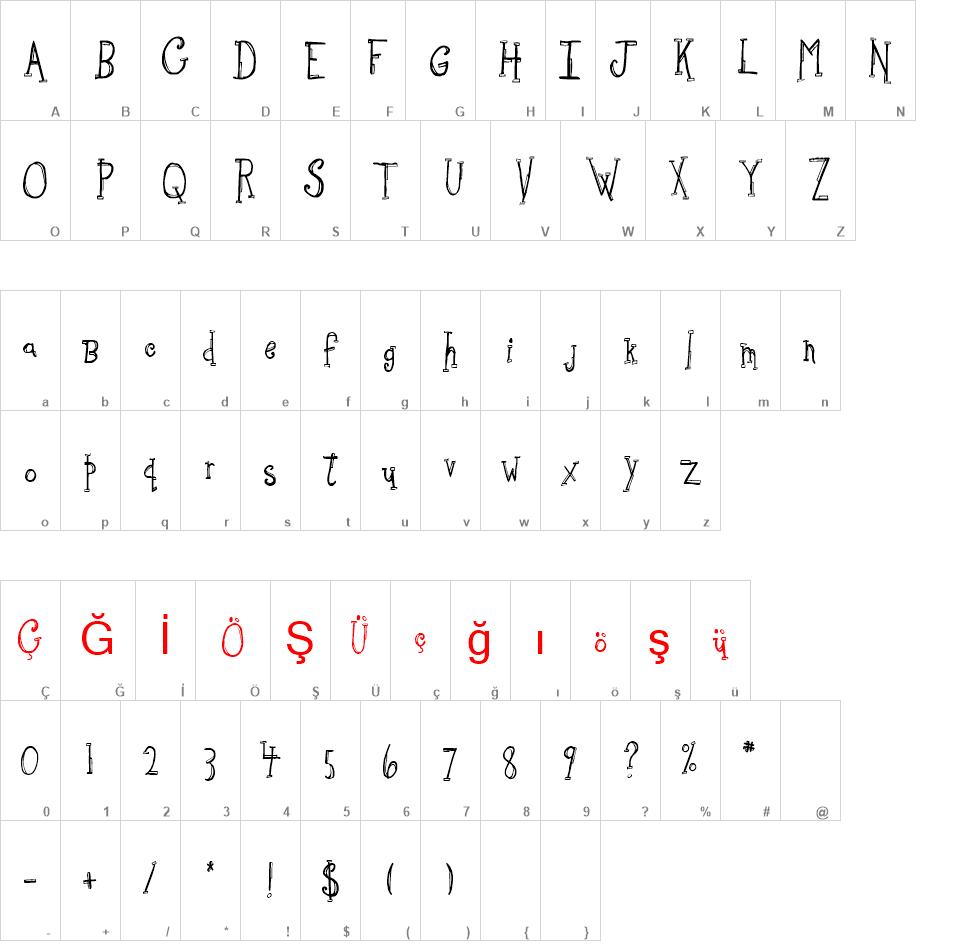
Sketchbook font
Sketchbook
I like to sketch sometimes. I'm not very good at it, though. Most everything turns into either letters or landscapes. But I was looking at some cartoons on the web, and the man had written sketchbook something like this. So I tried to simulate his style. I was pretty close, but no matter, it looks good.